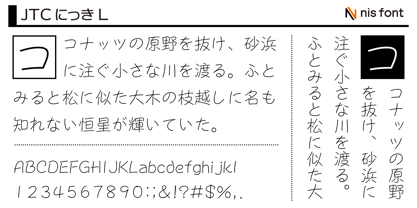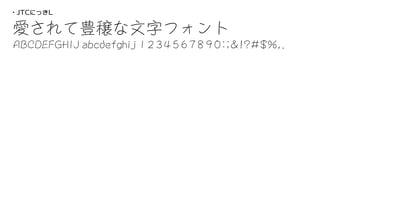
OT-NIS_NIK
by NIS Fonts
The OT-NIS_NIK Font Family was designed by and published by NIS Fonts. OT-NIS_NIK contains 1 styles. More about this family
This font conveys the atmosphere of a kind-hearted person reaching out to the reader, saying, "Let's do something fun together." The overall impression is one of warmth, comfort, and a cozy, homey feel. Supports the JIS2004 character set.